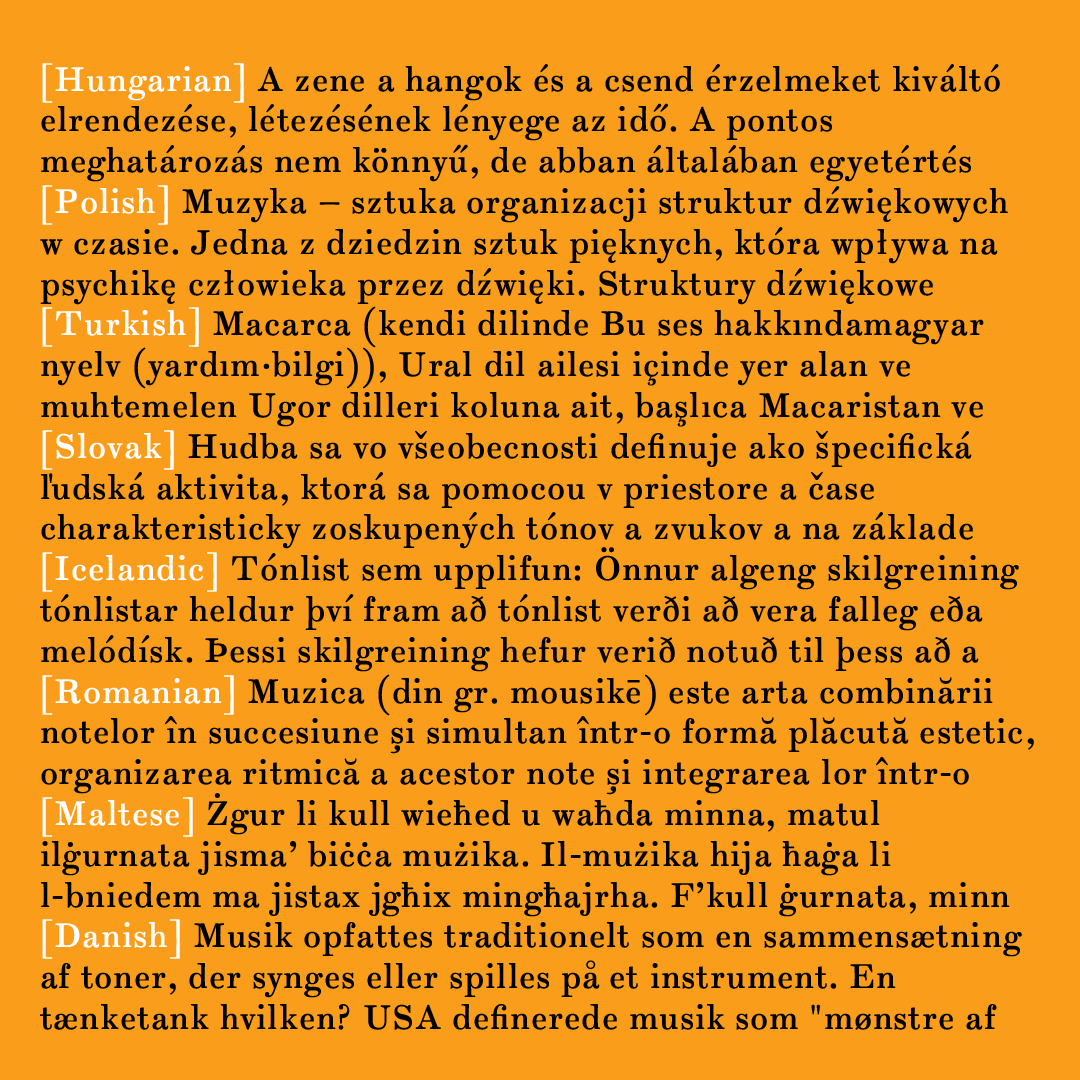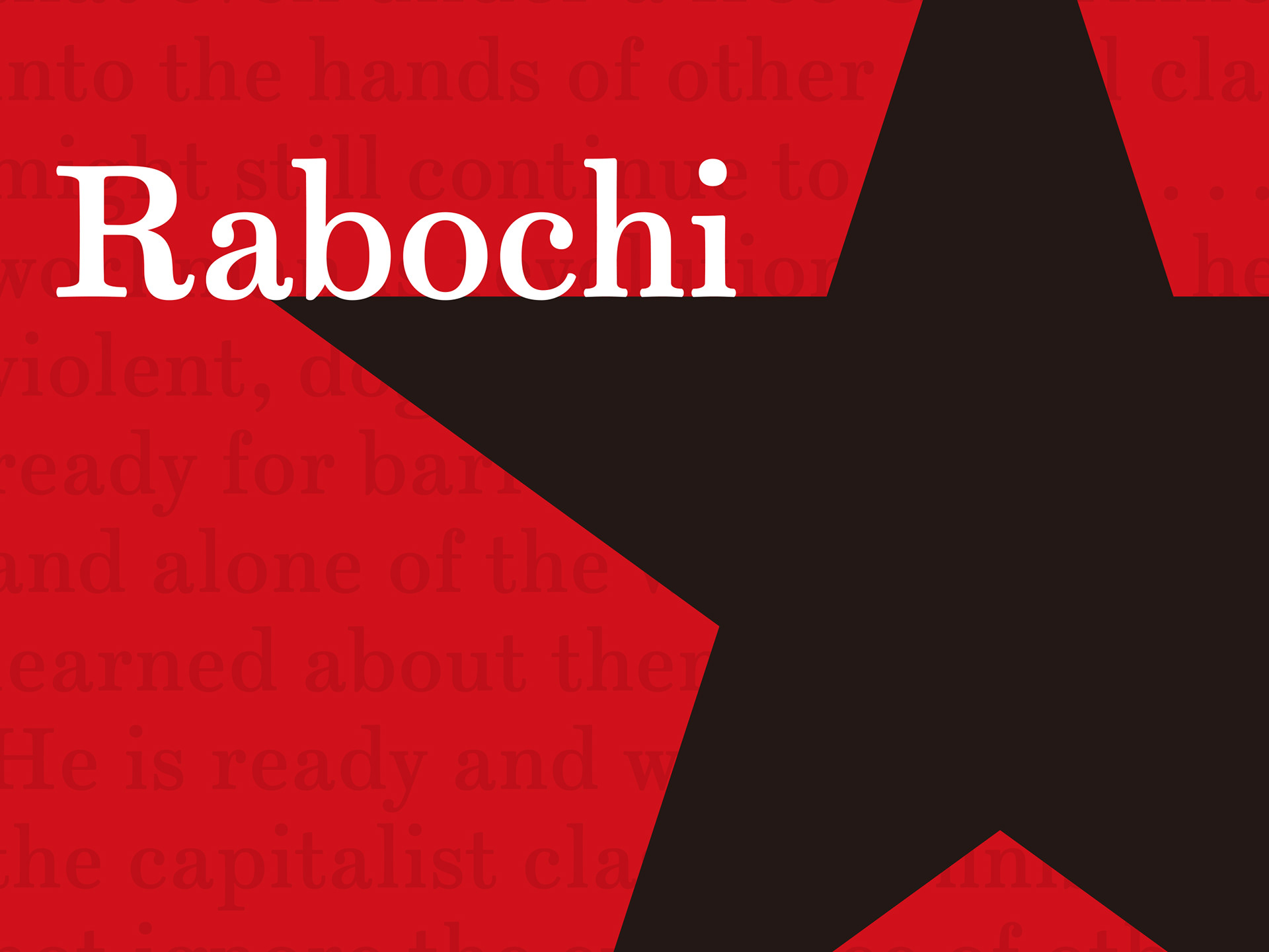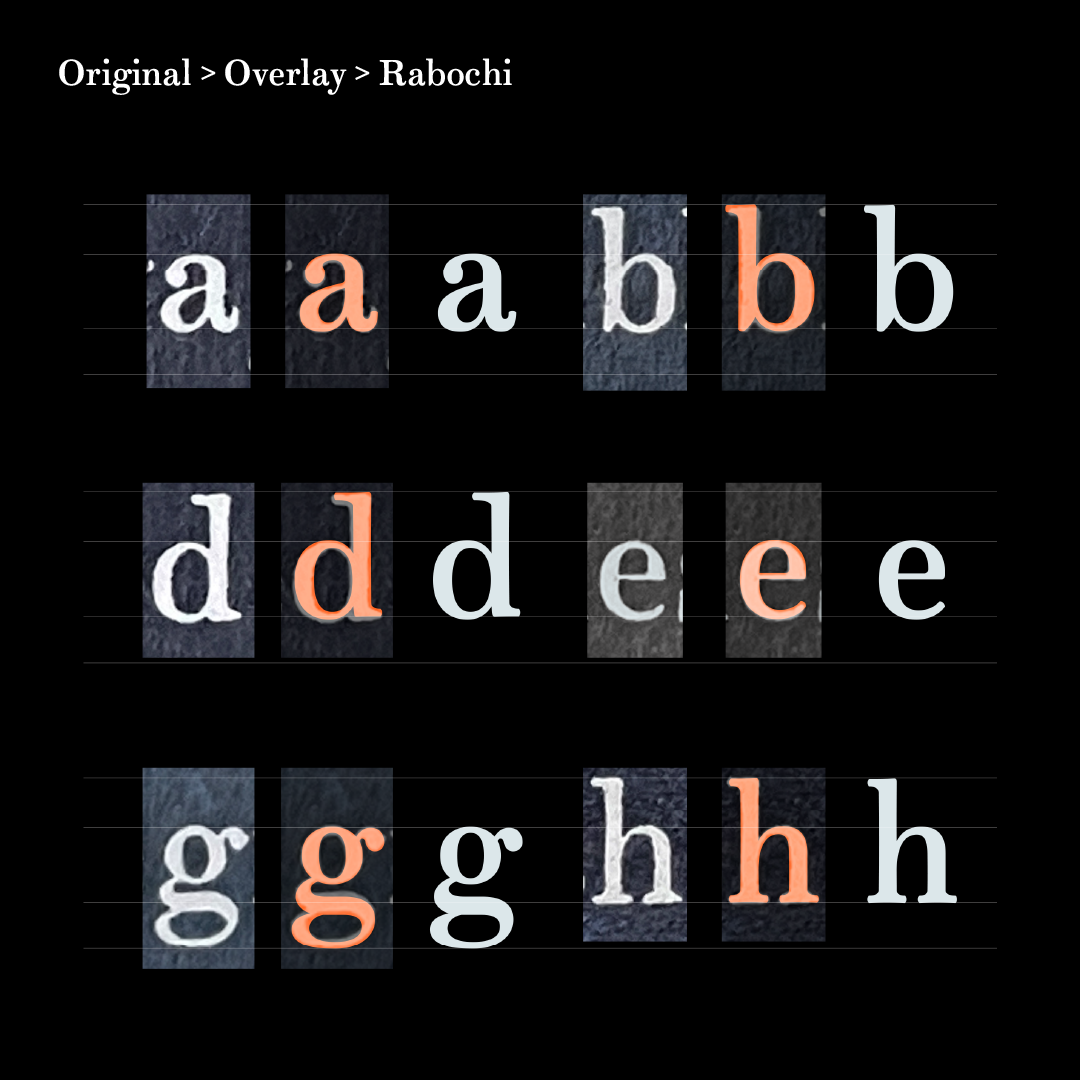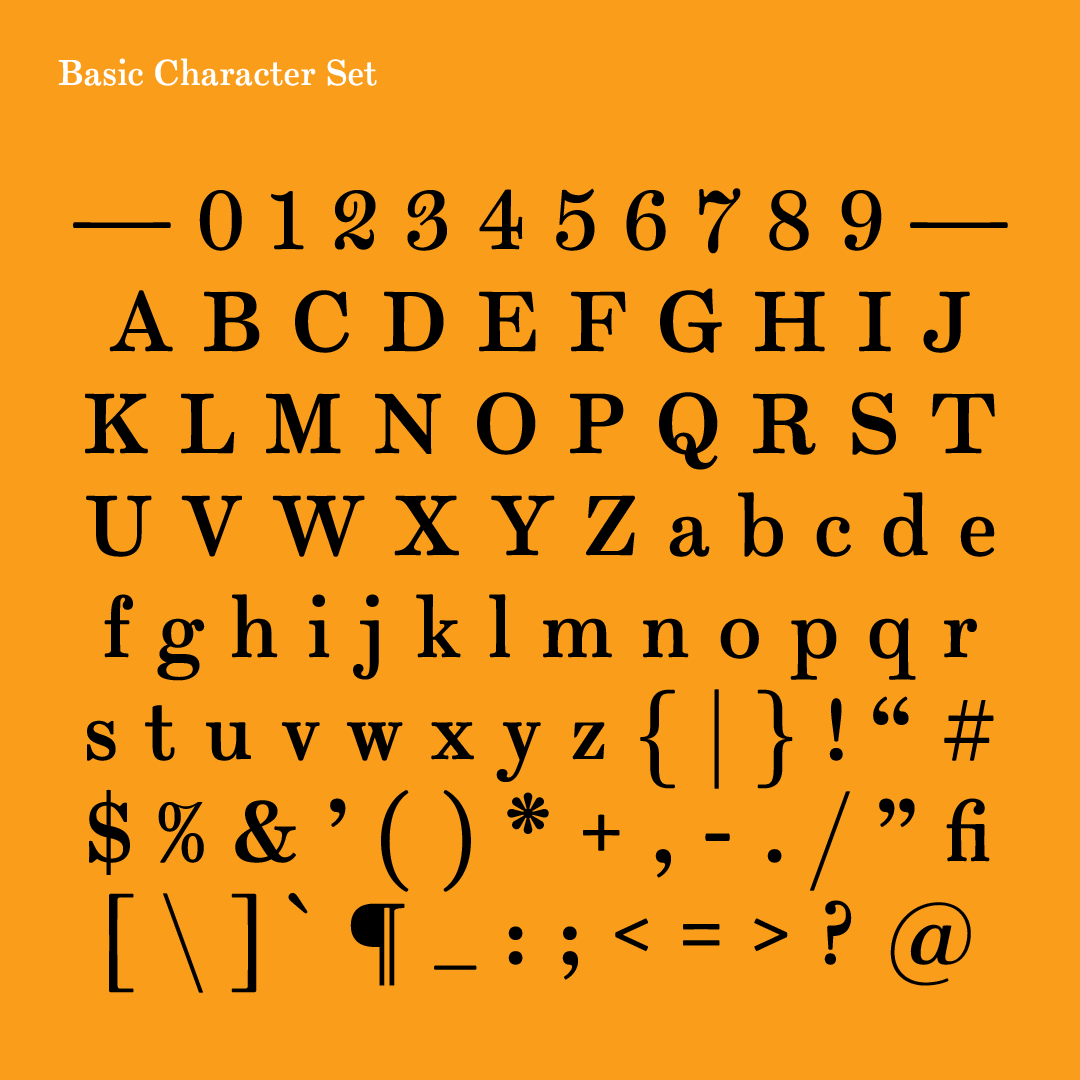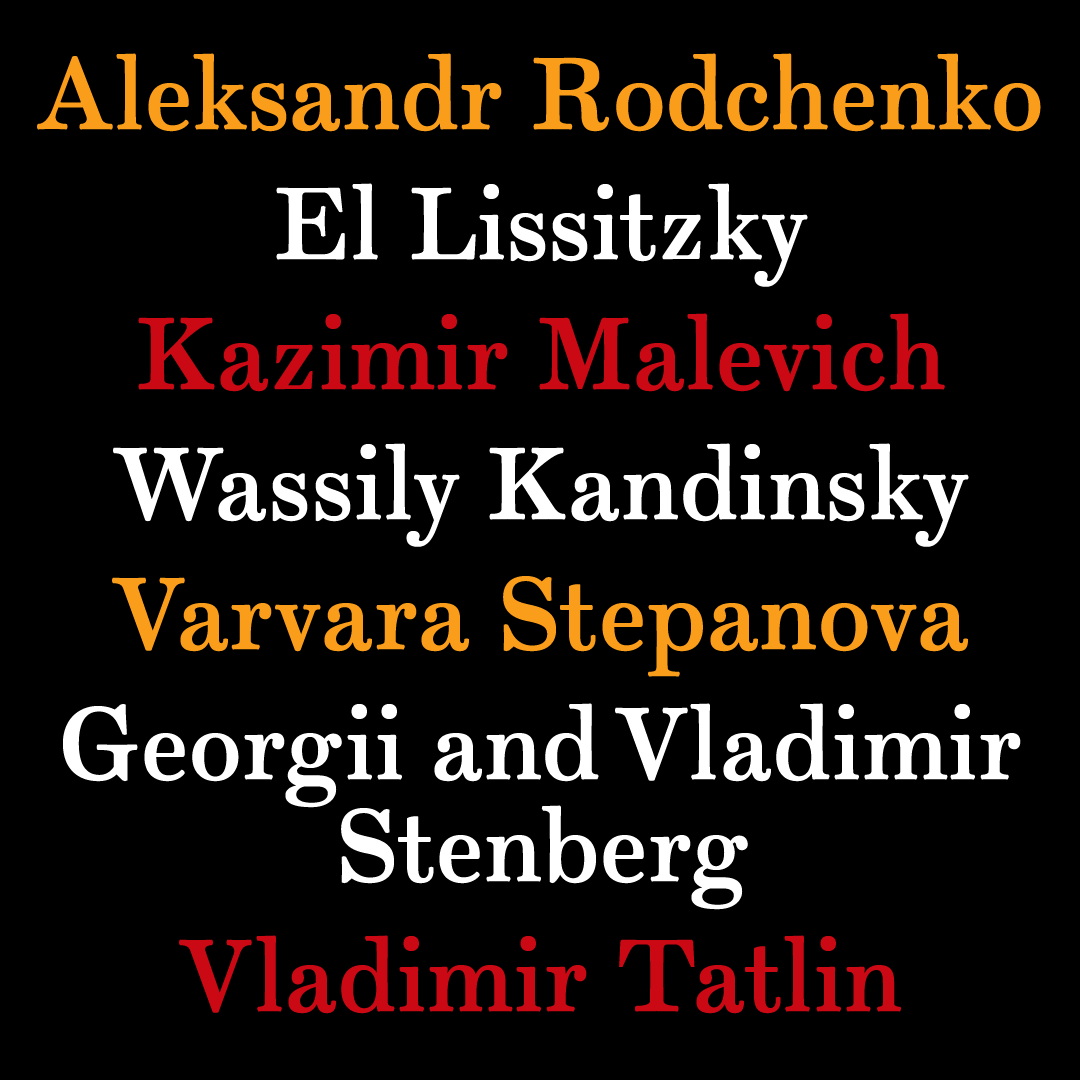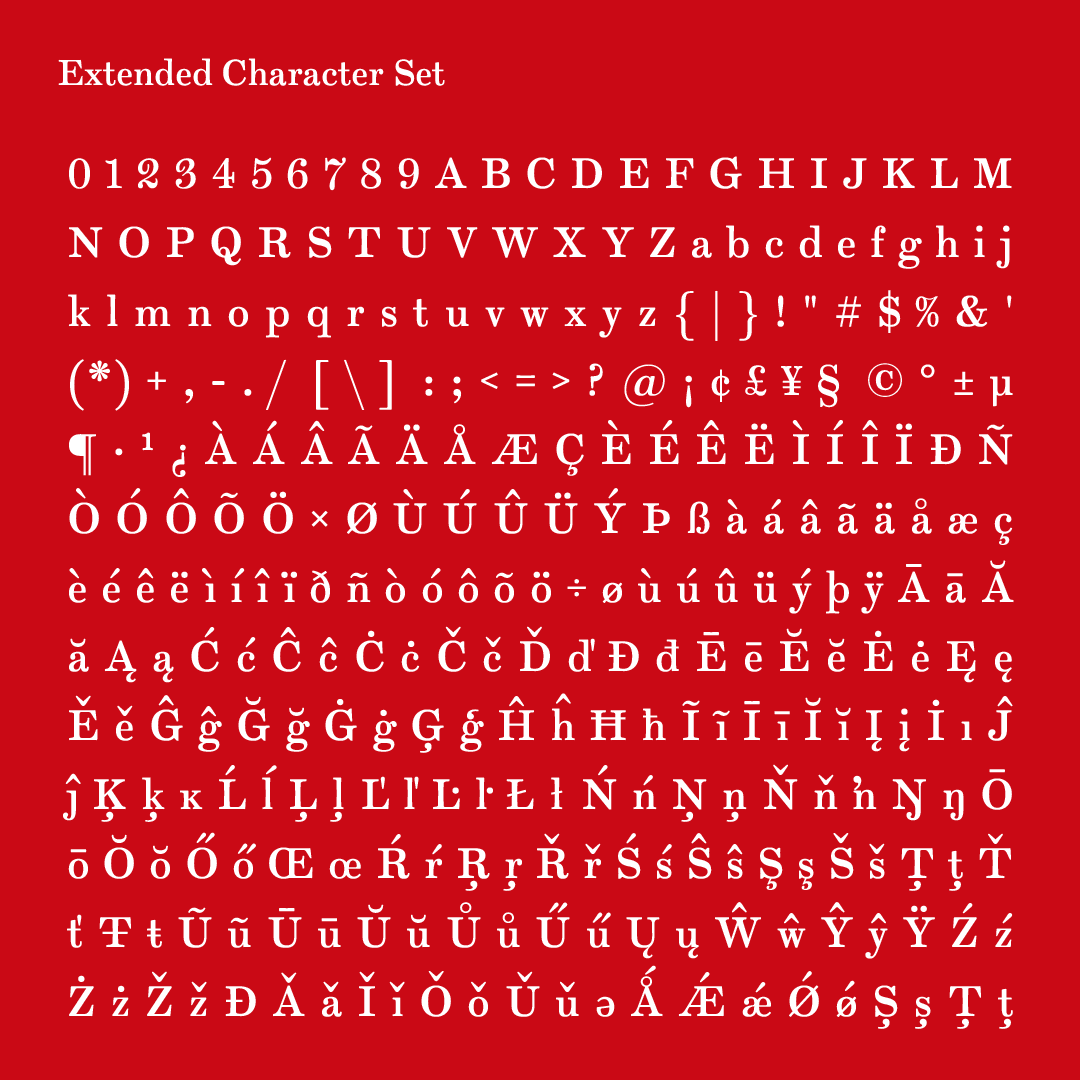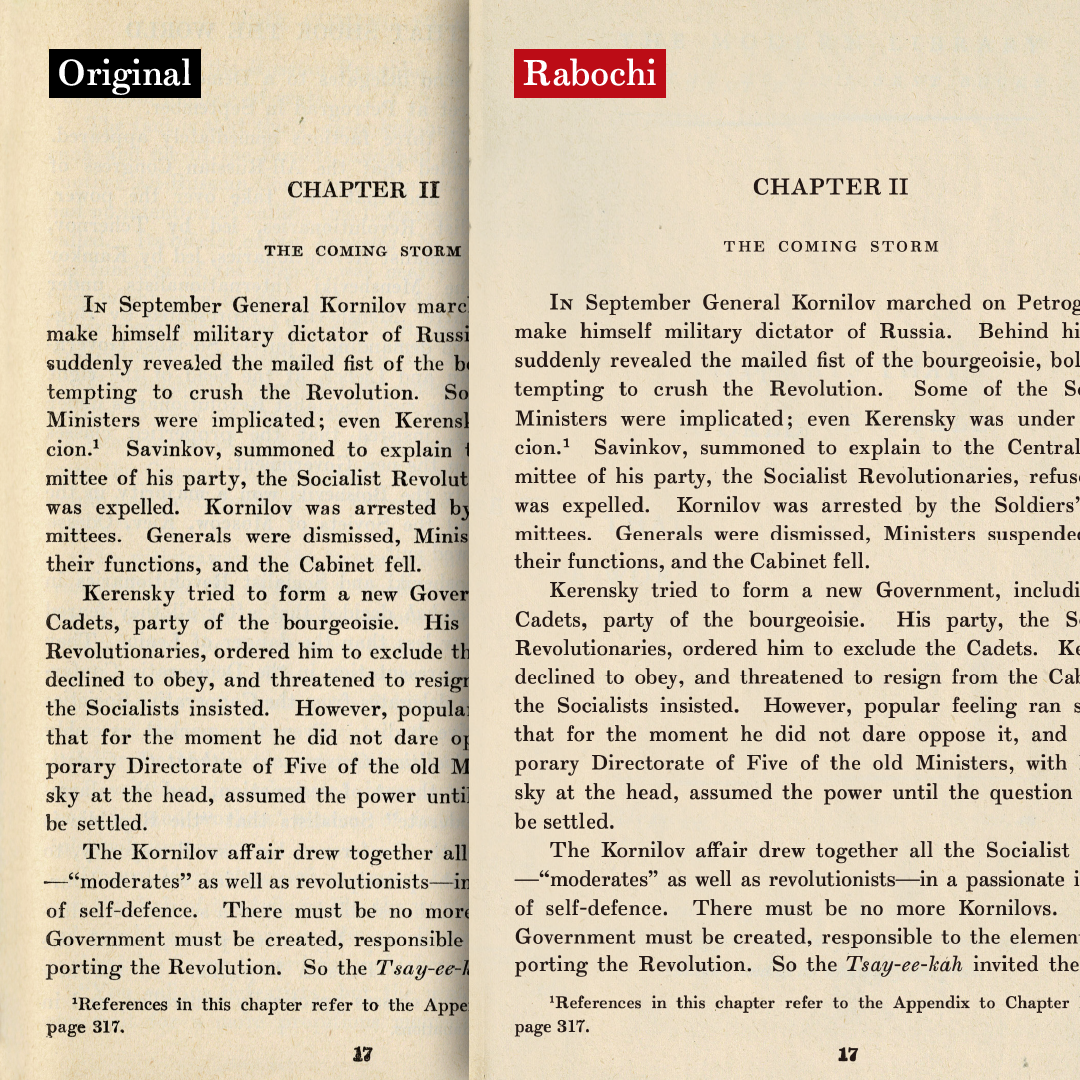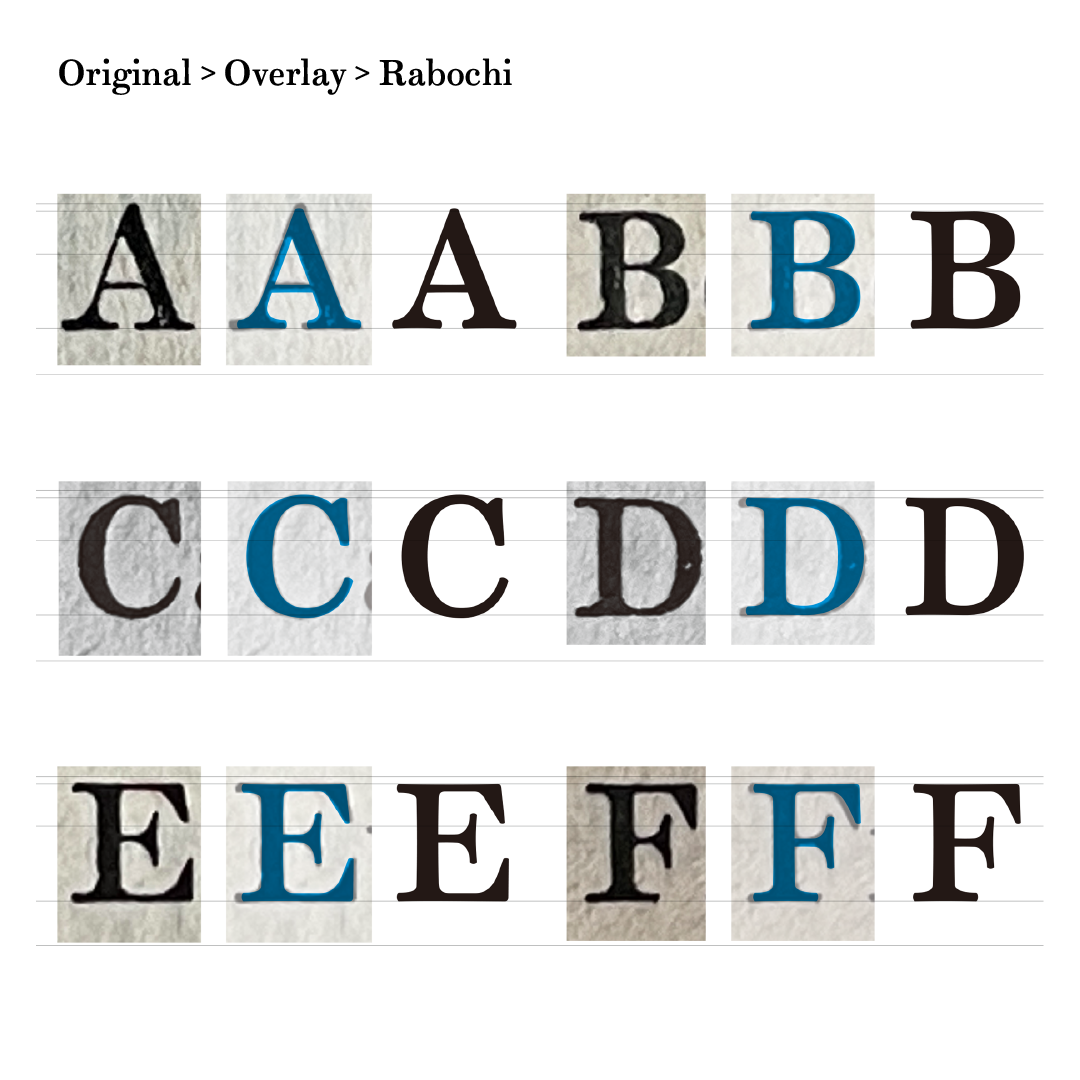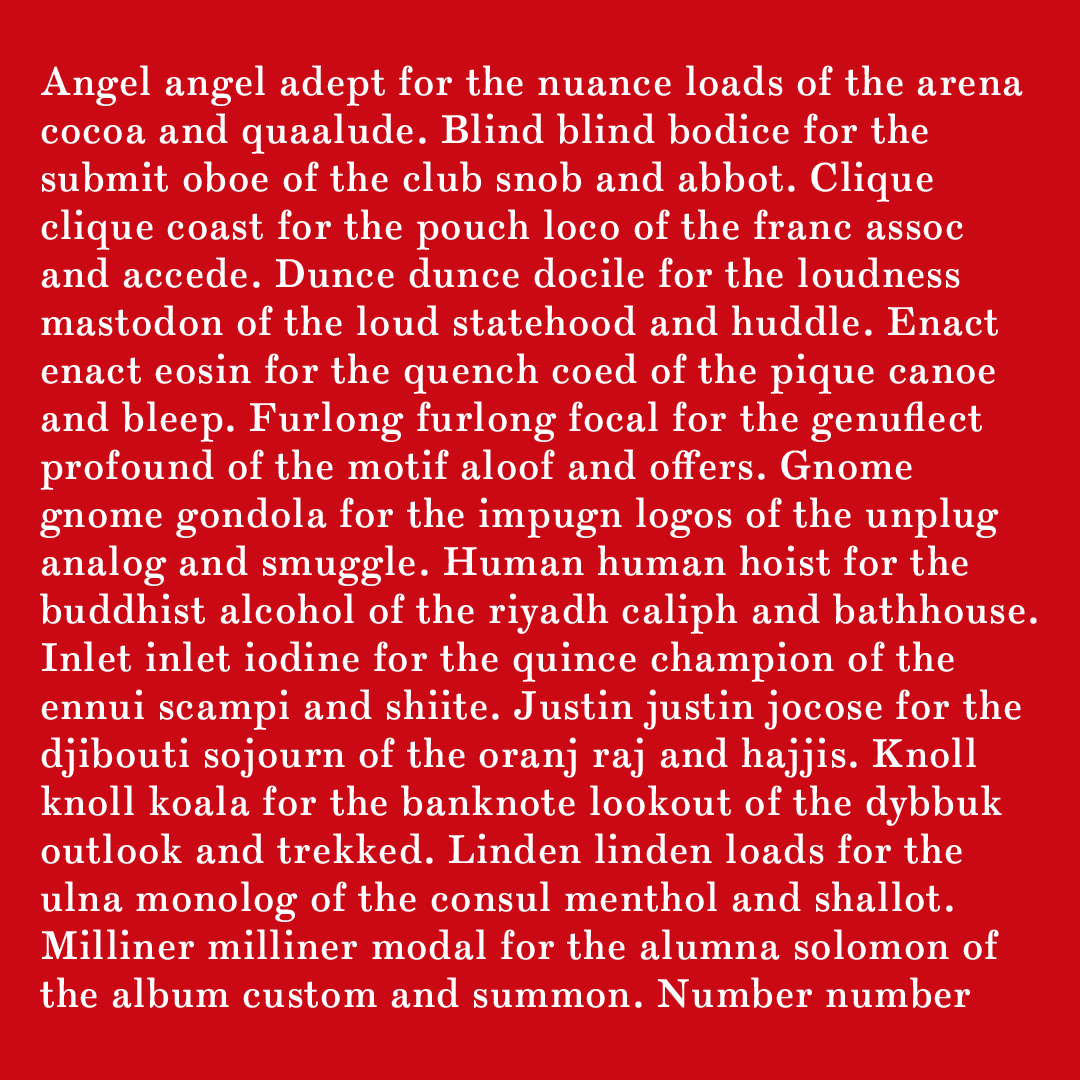
Rabochi, a type revival project for Type@Cooper Term 1, is based on the 1935 printing of “Ten Days That Shook the World” by John Reed. This book—about the 1917 Russian Revolution—belonged to my great-grandfather.